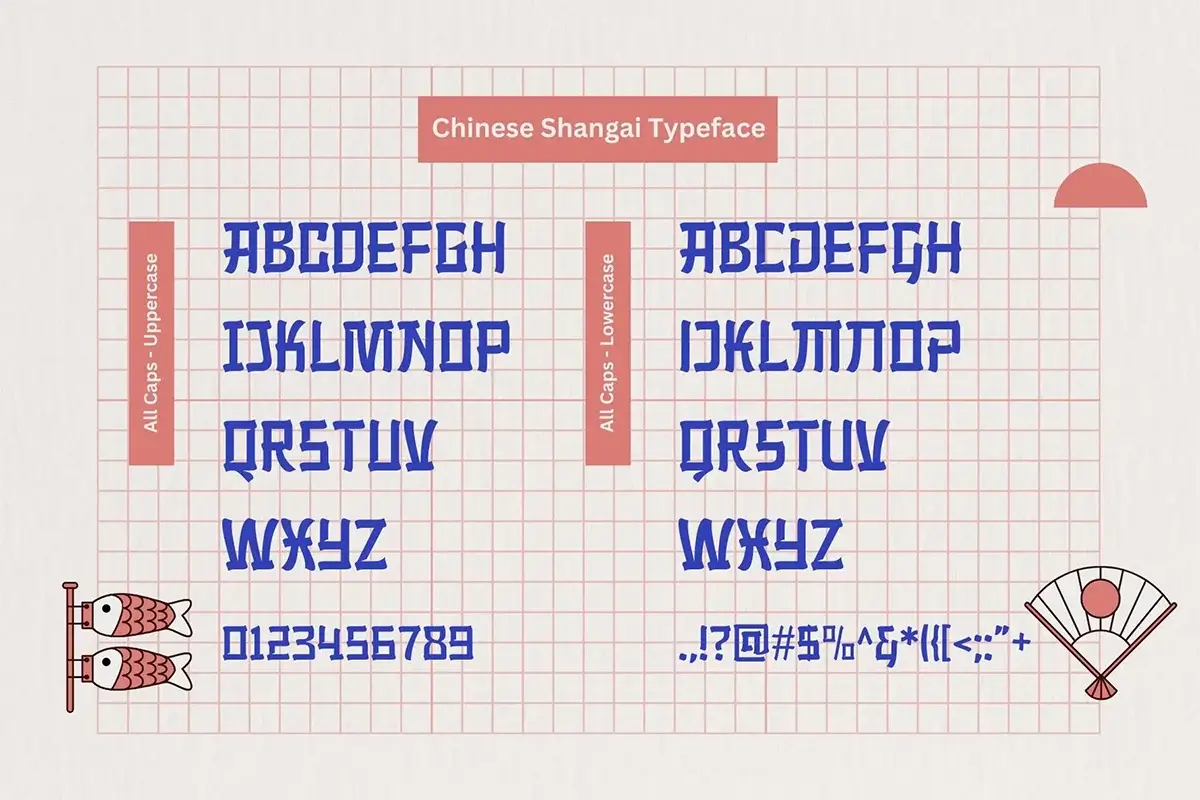
Chinese Shangai Font – Display Typeface
Chinese Shangai Font is a cool, beautiful and attractive display typeface inspired by China and Japan calligraphy that is perfect for adding a touch of urban flair to your designs.
This font is very suitable for use in different projects like; packaging, logos, labels, posters, shirt designs, bulletins, typography, posters, branding, headlines, invitations, social media posts, commercials, advertisements, editorial designs, product designs, websites and many other media.
Font Case:Uppercase, Uppercase(alt), Punctuation, Symbols and Support Multilingual